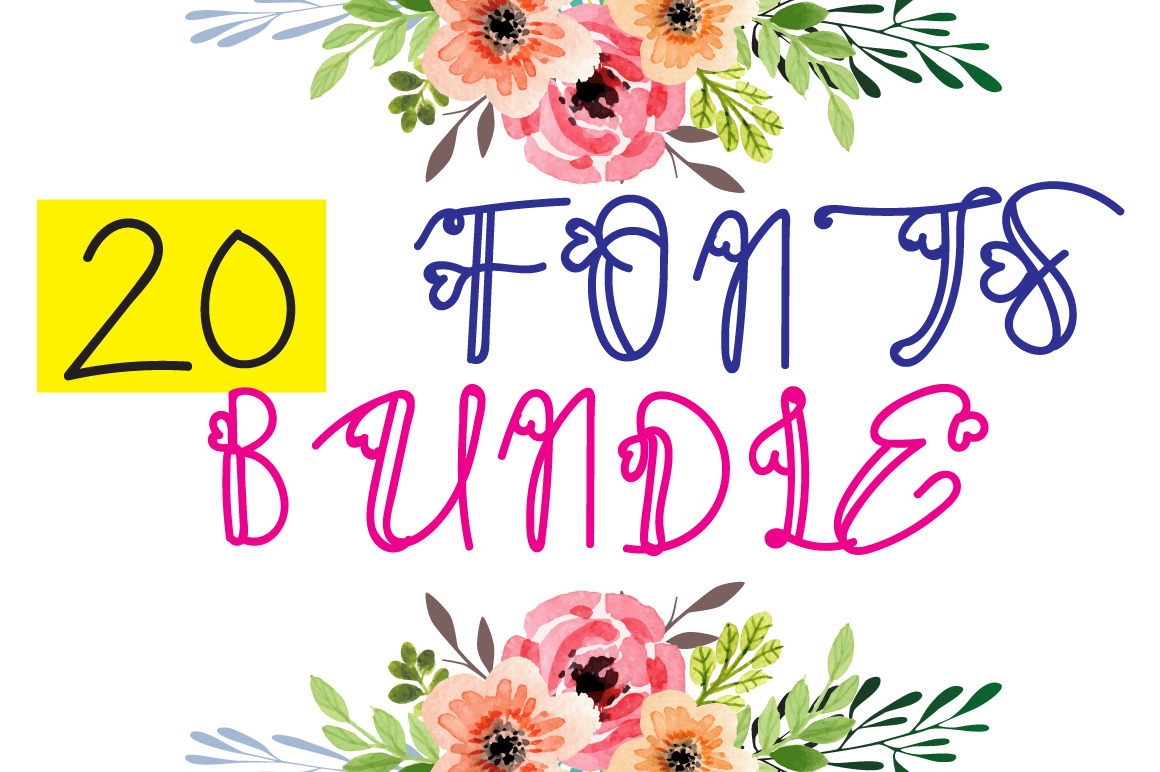
Autumn Fonts Bundle - 20 deco fonts
Autumn Font Bundle has all my best fonts collection! I really hope you like them. All these fonts have tones of alternates, every single letters have been carefully crafted to make your text looks beautiful. With modern script style these font will be perfect for many different project ex: quotes, blog header, poster, wedding, branding, logo, fashion, apparel, letter, invitation, stationery, etc.